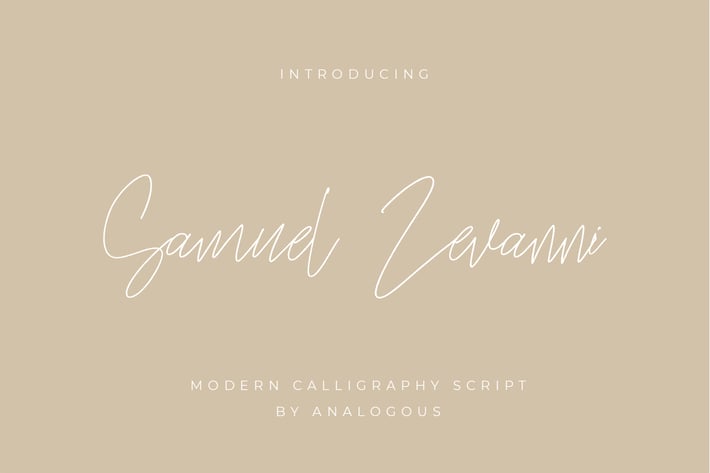
Samuel Zevanni Font
We introduce our new product called Samuel Zevanni Font
Samuel Zevanni is a signature font that you can use to make a design. This is perfect for BRANDING,funny logos with this font and poster headline, magazines, book titles, business cards, beautiful fashion designs, advertisements, product designs, wedding invitation, signature or handwritten quote.
Samuel Zevanni also includes full set of uppercase and lowercase letters, multilingual symbols, numerals, punctuation. The font has smooth wet ink texture, so would be perfect for all types of printing techniques+you can do embroidery, laser cut, gold foil etc.
Latin A -Z and a – z
International Symbol
International glyphs
Alternatif